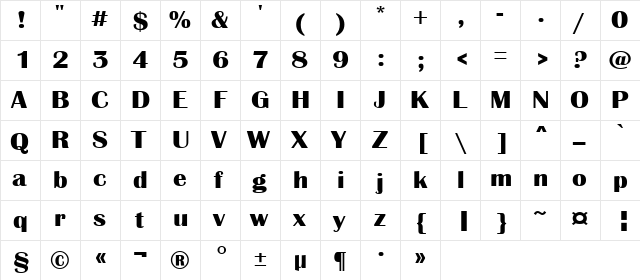
a_AlbionicExp Bold
Design Context for a_AlbionicExp Typeface
a_AlbionicExp offers clean, dependable letterforms without strong stylistic allegiance, making it a practical choice for designers who need flexibility. The heavy weight commands attention and anchors typographic hierarchies.